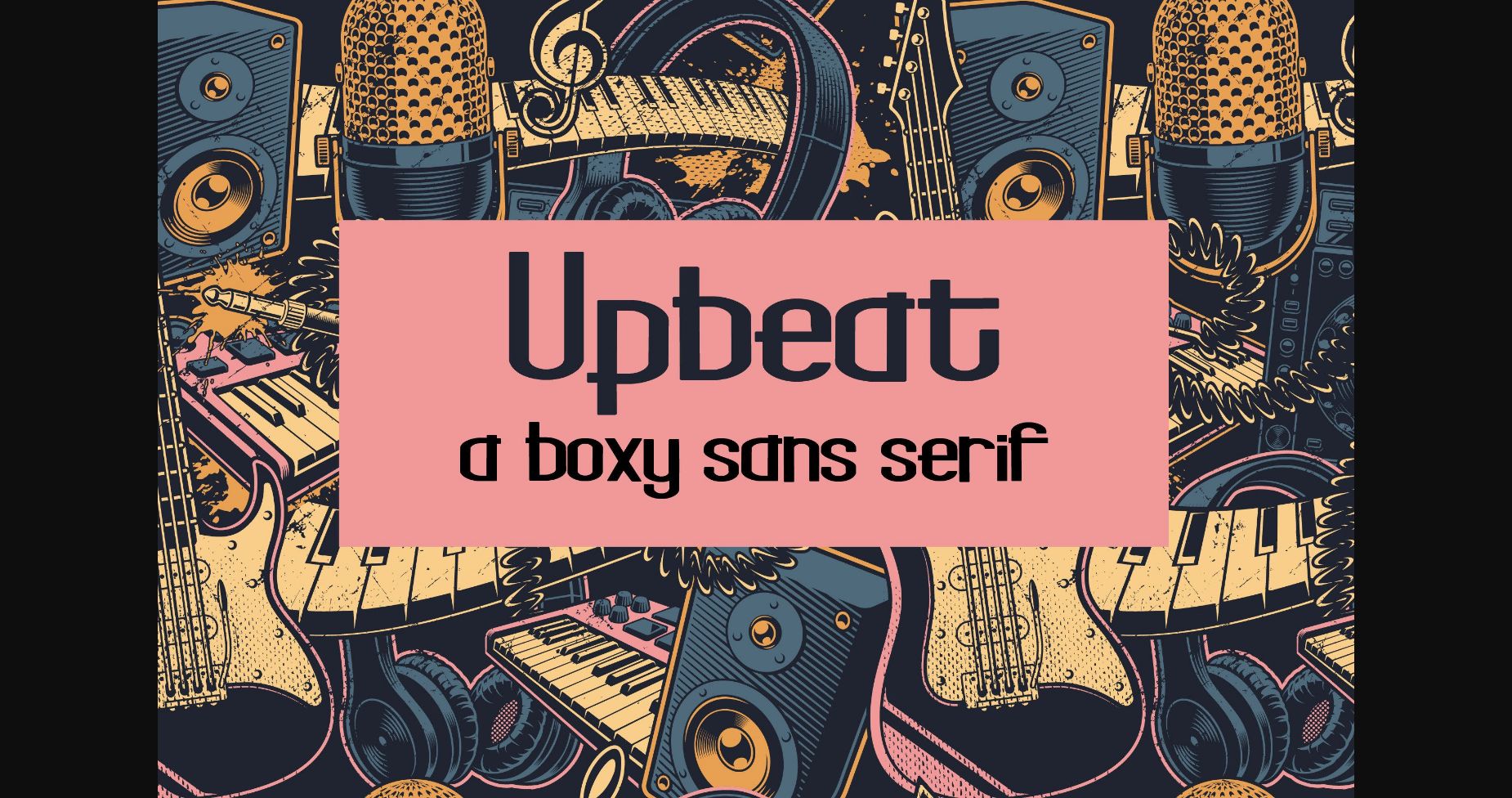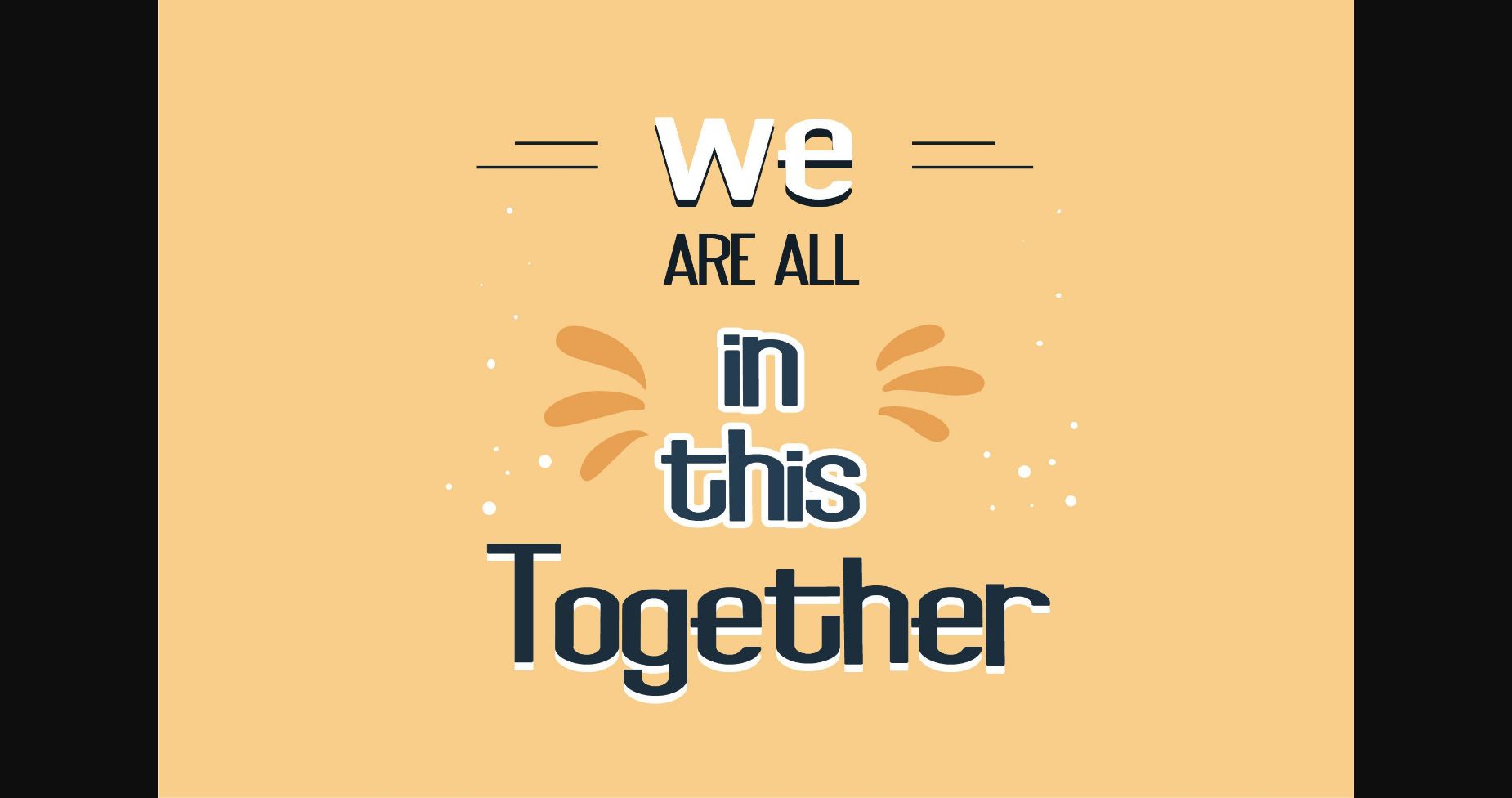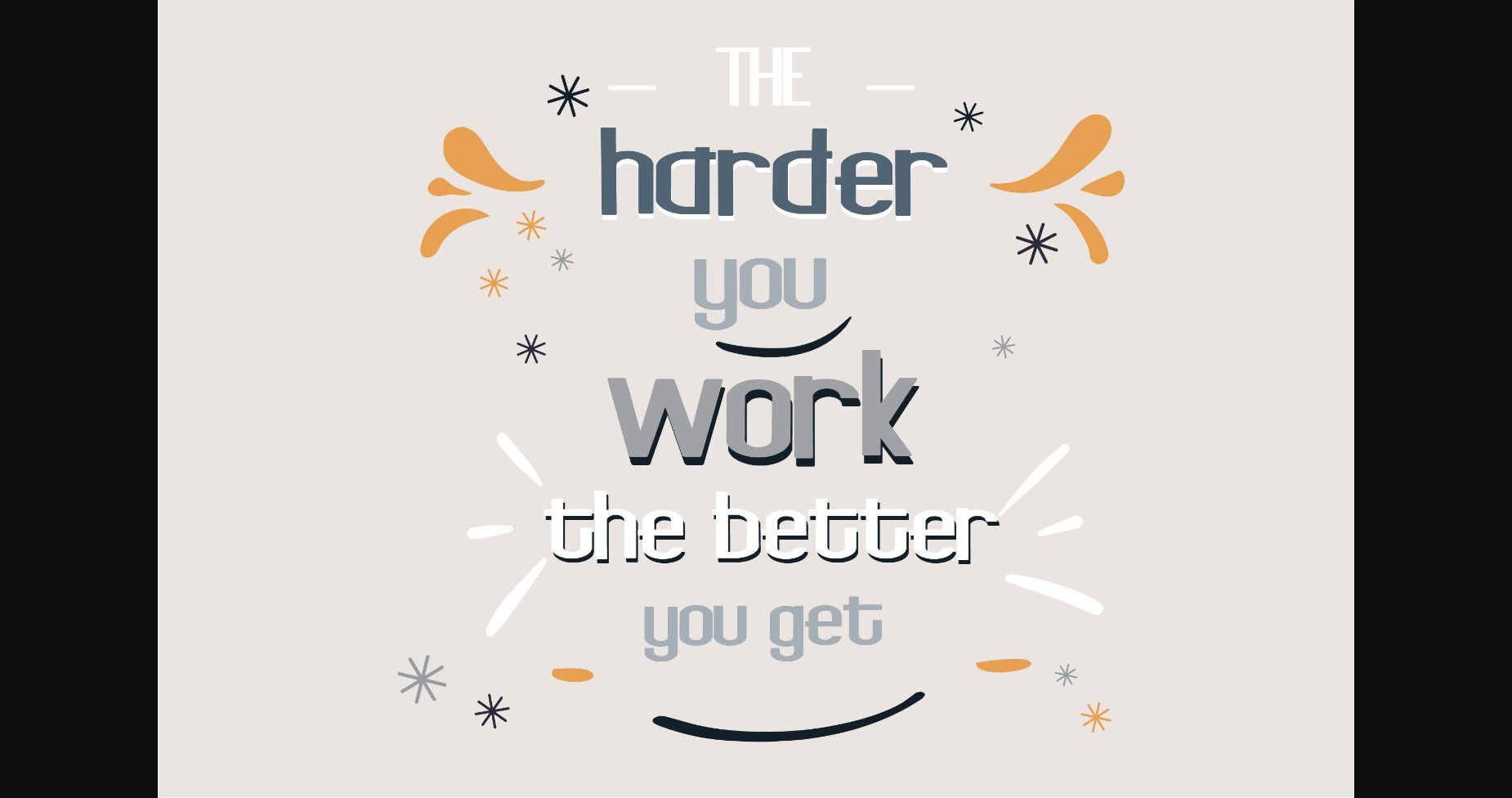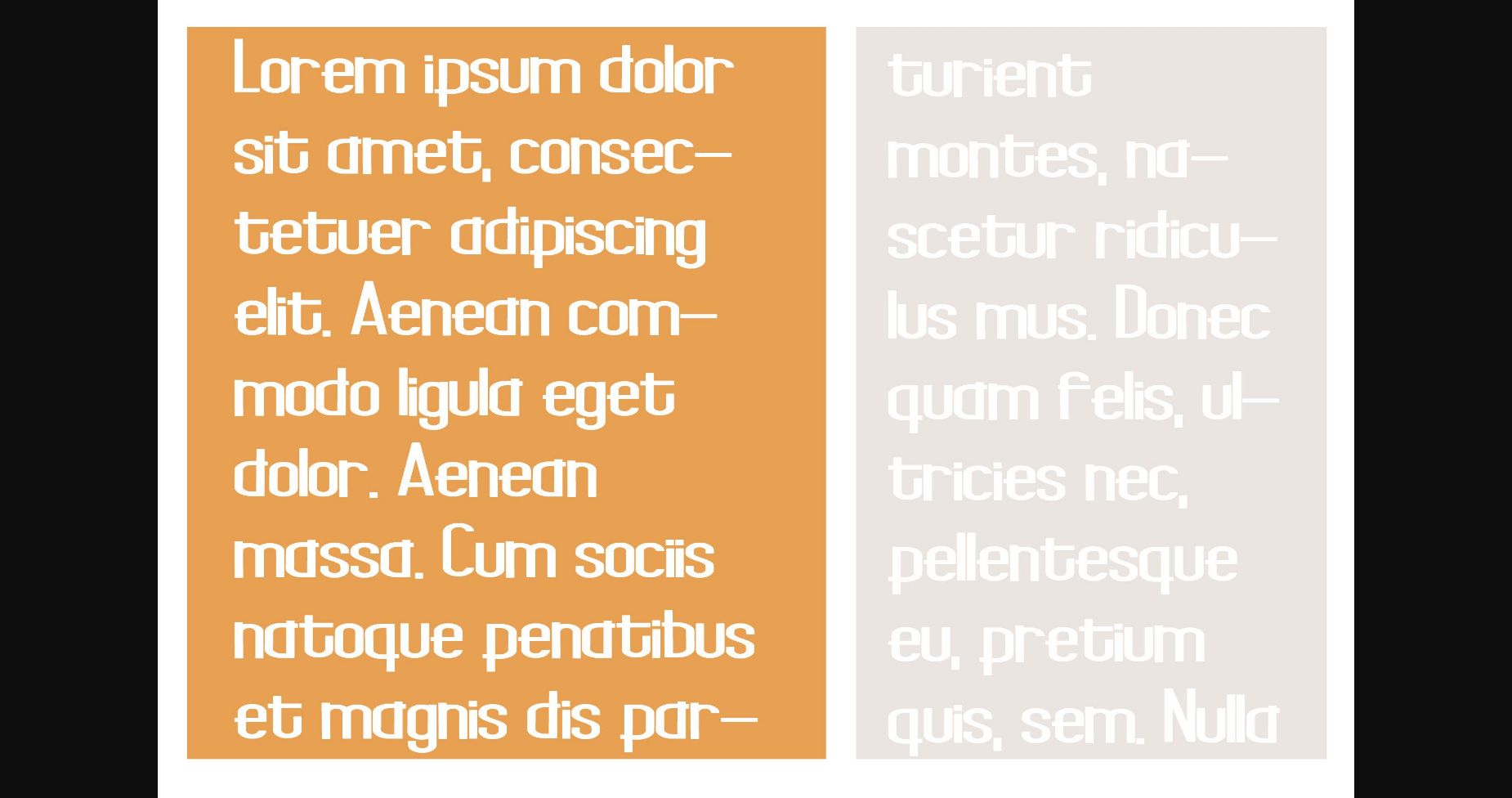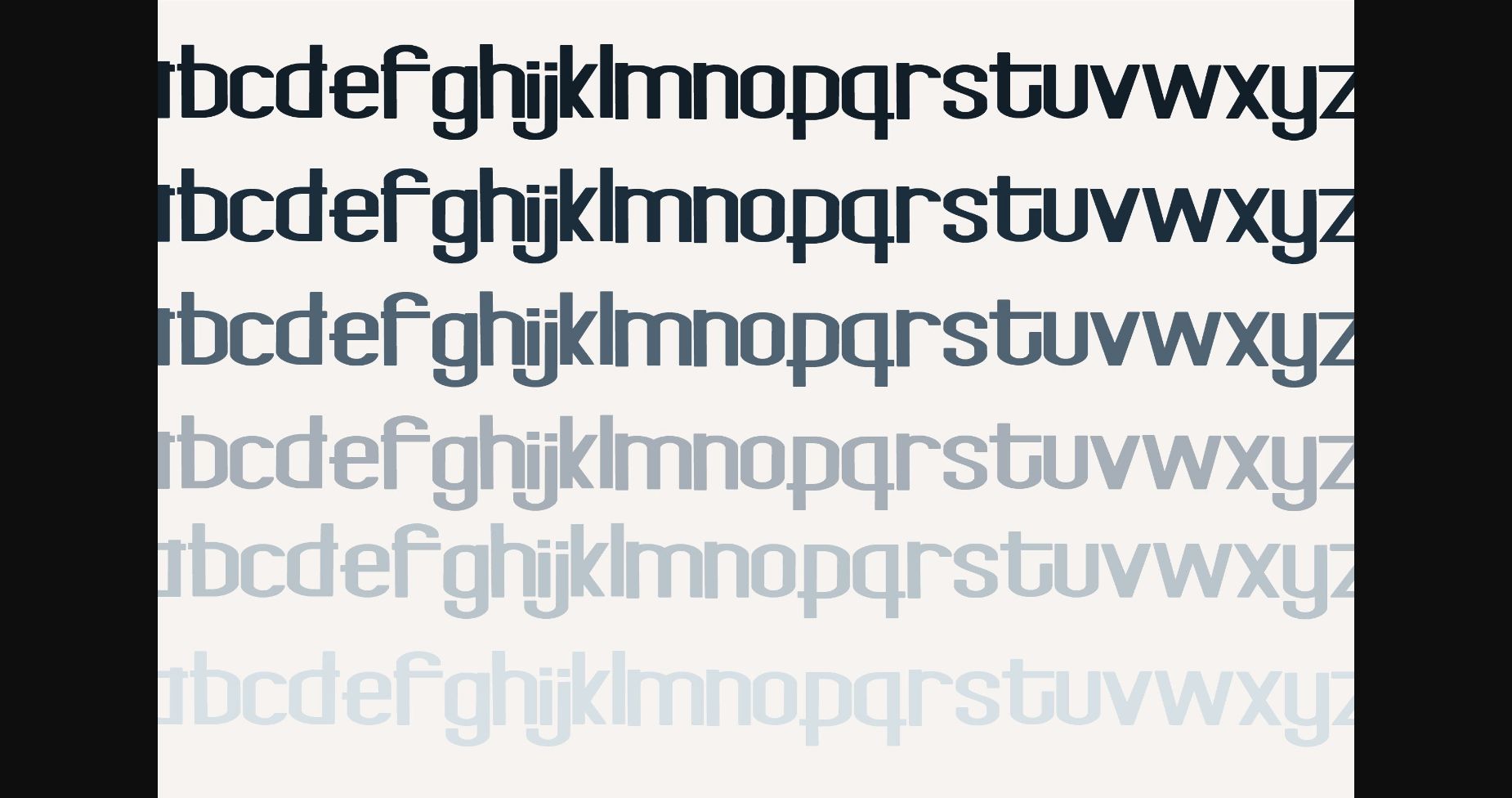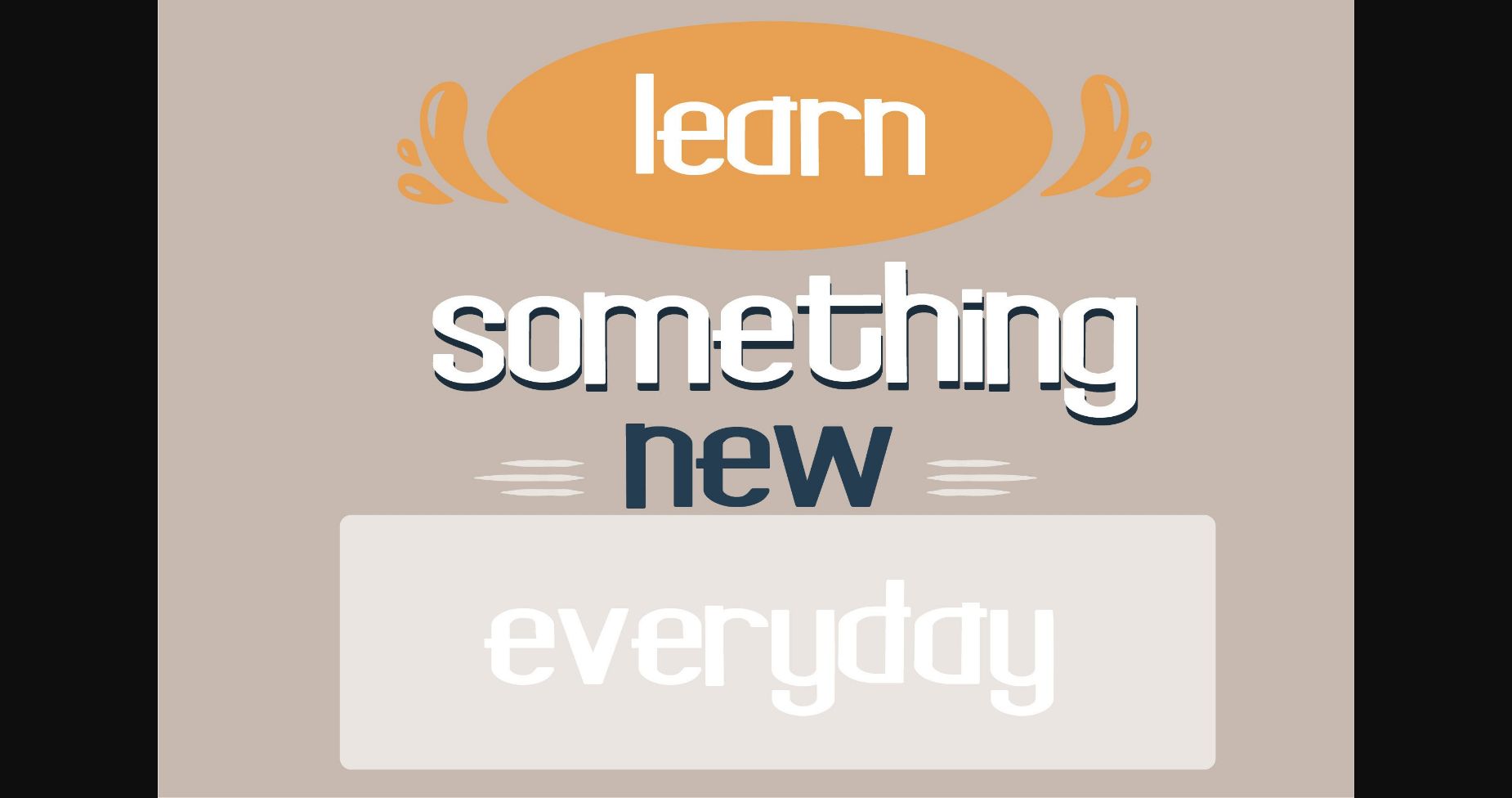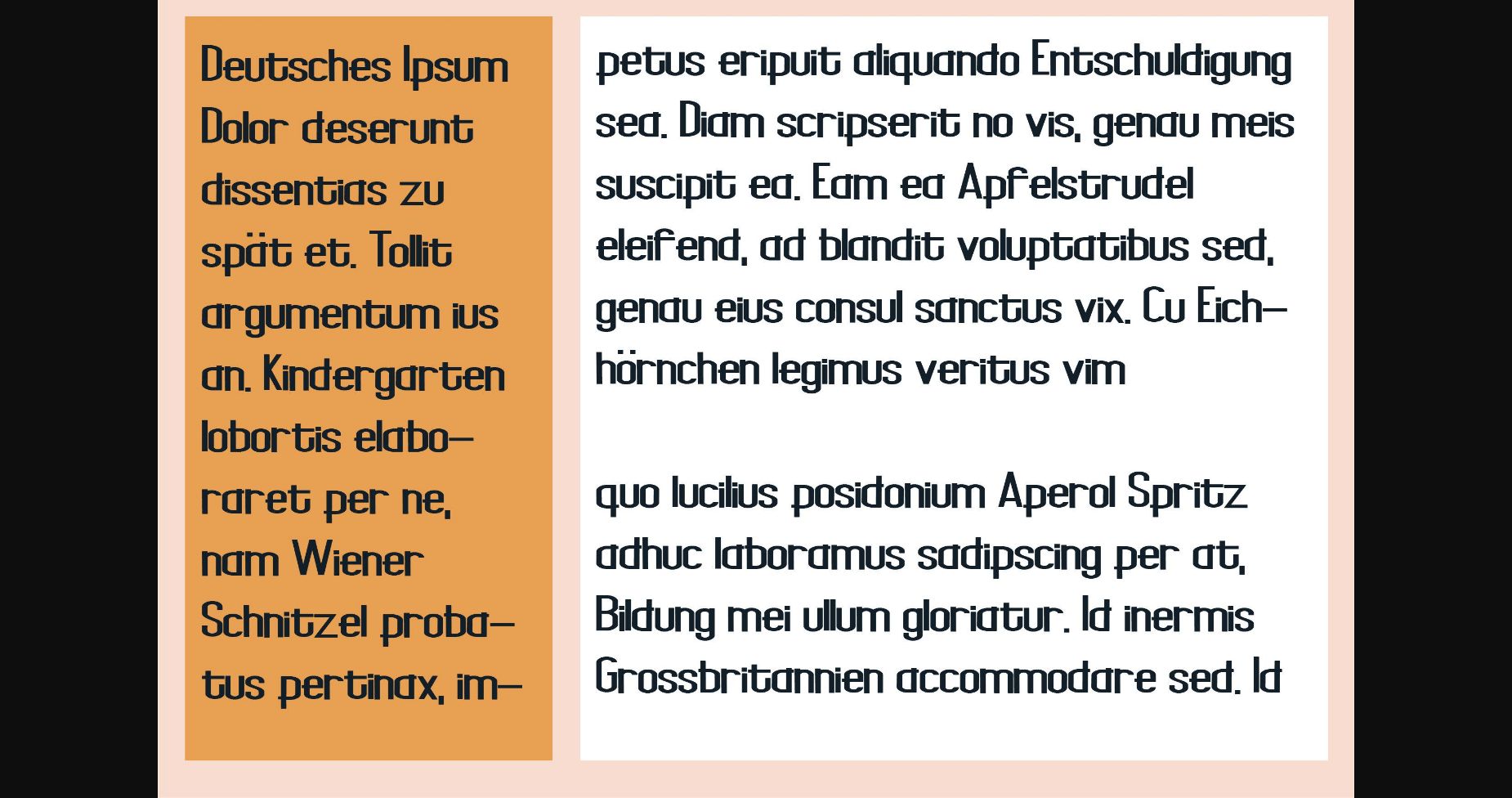
This sans serif font is blocky and rectangular with a bit of a hand-crafted feel. Its quirky letters will make sure your product doesn’t go unnoticed!